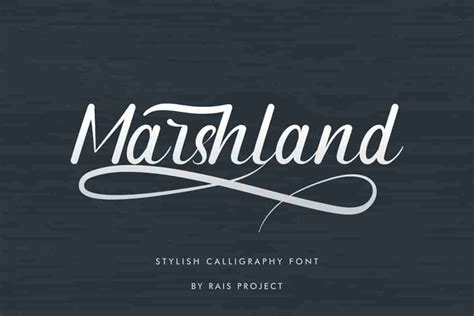
Marshland Font: A Unique Typography Choice
Hey design enthusiasts! Today, we’re diving deep into the world of typography to talk about a font that’s been catching a lot of eyes: the Marshland font . If you’re on the hunt for something that’s a bit different, something that can bring a unique vibe to your projects, then you’ve come to the right place, guys. We’re going to explore what makes this font so special, where you might have seen it, and how you can best utilize its distinctive character in your own creative endeavors. Get ready to discover why the Marshland font might just be the missing piece in your design toolkit.
What is the Marshland Font?
So, what exactly is the Marshland font ? At its core, it’s a typeface designed to evoke a specific feeling, a certain atmosphere. Think of the subtle curves, the slightly irregular strokes, and the overall organic feel that might remind you of nature, perhaps even the very marshes it’s named after. It’s not your everyday sans-serif or a classic serif; it’s something with more personality. The Marshland font often falls into the category of display fonts, meaning it’s best suited for headlines, logos, and other instances where you want text to stand out and make a statement. Its uniqueness comes from its departure from strict geometric forms, embracing a more fluid and expressive quality. This makes it incredibly versatile for projects that aim for an artistic, handcrafted, or even slightly whimsical feel. Whether you’re designing a poster for a nature festival, a logo for an artisanal brand, or even a book cover for a fantasy novel, the Marshland font can add that extra layer of character and memorability. It’s the kind of font that tells a story just by its shape, inviting the viewer to look closer and engage with the design on a deeper level. The intentional imperfections, the subtle variations in line weight, and the overall flow give it a sense of authenticity and warmth, setting it apart from more sterile or conventional typefaces. When you first see it, you might think of earthy tones, natural textures, and a connection to the wild. It’s a font that doesn’t shout; it whispers, drawing you in with its subtle charm and artistic flair. This makes it a fantastic choice for brands looking to convey a sense of organic growth, sustainability, or a connection to the natural world. It’s not just about letters; it’s about creating an experience, and the Marshland font certainly delivers on that front. Its design philosophy seems rooted in the idea that typography can be as expressive and evocative as any illustration, and it succeeds admirably in this endeavor. So, if you’re tired of the same old fonts and looking for something that truly has a soul, the Marshland font is definitely worth exploring.
Where Can You Use the Marshland Font?
Now that we know what makes the Marshland font so intriguing, let’s talk about where this beauty can shine. As mentioned, it’s fantastic for headlines and titles . Imagine a book cover with “Marshland” as the title in this font – instant atmosphere . It’s also a stellar choice for logo design , especially for brands that want to convey a natural, organic, or artistic identity. Think eco-friendly products, artisanal bakeries, nature retreats, or even a boutique craft store. The Marshland font lends itself well to creating a memorable and unique brand mark. For poster designs , whether for events, concerts, or art exhibitions, this font can grab attention and set the tone immediately. It’s also been spotted in branding materials for creative agencies, photographers, and anyone looking to add a touch of artistic flair to their identity. Don’t shy away from using it for website headers or key call-to-action buttons if your site’s aesthetic aligns with its natural, flowing vibe. For greeting cards or invitations , especially for rustic or nature-themed weddings, the Marshland font can add a personal and charming touch. Even in editorial design , like magazine layouts or blog post titles, it can break up monotony and add visual interest. The key is to pair it with appropriate imagery and color palettes that complement its natural, flowing aesthetic. While it’s a display font, meaning it’s not ideal for long blocks of body text (it might become hard to read), its impact in shorter bursts of text is undeniable. Consider it for packaging design for artisan goods, giving your product a sophisticated yet natural appeal. It can also be a great choice for social media graphics , helping your posts stand out in a crowded feed. The Marshland font excels when it’s given the spotlight, making it perfect for those crucial design elements that need to make a strong first impression. Remember, its organic nature means it pairs beautifully with textures like wood, paper, or even subtle watercolor effects. It’s all about creating a cohesive visual language that speaks to your audience. So, guys, don’t be afraid to experiment! The Marshland font is your secret weapon for adding that touch of originality and personality that can elevate any design project from ordinary to extraordinary. It’s a versatile tool that, when used thoughtfully, can create a lasting impression and truly connect with your audience on an emotional level, making your message resonate more deeply.
Designing with Marshland Font
When you start designing with the Marshland font , the first thing to remember is its personality. It’s not a shy font; it has a distinct character that needs to be respected. Unlike a neutral font that can blend into the background, the Marshland font wants to be noticed. This means you should use it strategically. Its strength lies in its uniqueness, so avoid overcrowding it with too many other competing design elements. Think of it as the star of the show. When pairing it with other fonts, opt for something that complements its organic flow without clashing. A clean, simple sans-serif or a classic serif can provide a nice contrast, allowing the Marshland font to remain the focal point. Avoid pairing it with other highly stylized or decorative fonts, as this can lead to a chaotic and unreadable design. The color palette you choose will also play a huge role. Earthy tones, muted greens, deep blues, and warm browns often work wonderfully with the Marshland font , enhancing its natural, marsh-like feel. However, don’t be afraid to experiment with bolder colors if your project calls for it; the font’s inherent charm can often hold its own against vibrant hues. When considering spacing, give the Marshland font a little breathing room. Its letterforms might have unique curves or ligatures, and adequate letter-spacing (kerning) and line-spacing (leading) will ensure readability and highlight its aesthetic qualities. Remember, this font is often chosen for its artistic appeal, so embrace that. Let it guide your overall design aesthetic. If the font feels whimsical, lean into that. If it feels grounded and natural, let that inform your background textures and imagery. Designing with the Marshland font is about understanding its narrative and building a visual story around it. It’s about creating harmony between the typography and the rest of your design elements. Don’t just slap it on a page; integrate it. Consider the negative space around it – how does it interact with the elements around it? This mindful approach will ensure that the Marshland font not only looks good but also effectively communicates your message while reinforcing your brand’s identity. It’s a powerful tool for storytelling, and when you harness its potential correctly, your designs will undoubtedly stand out and leave a memorable impression. So, have fun with it, guys, and let the Marshland font inspire your creativity to new heights!
Finding and Using Marshland Font
In conclusion, the Marshland font is a remarkable typographic choice for designers seeking to inject personality and a unique natural aesthetic into their work. Its distinct character, inspired by the subtle beauty of marshlands, makes it ideal for a wide range of display applications, from eye-catching headlines and memorable logos to evocative poster designs and branding elements. While it excels in short bursts of text where its unique forms can be appreciated, it’s best paired with simpler fonts for body copy to maintain readability. Understanding how to design with the Marshland font , including thoughtful font pairings, color palettes, and spacing, is key to unlocking its full potential. By embracing its organic flow and artistic flair, you can create designs that are not only visually appealing but also deeply resonant. Whether you’re a seasoned designer or just starting, exploring fonts like Marshland expands your creative toolkit and allows for more expressive communication. So, don’t hesitate to experiment with this captivating typeface – it might just be the element your next project needs to truly stand out. Happy designing!